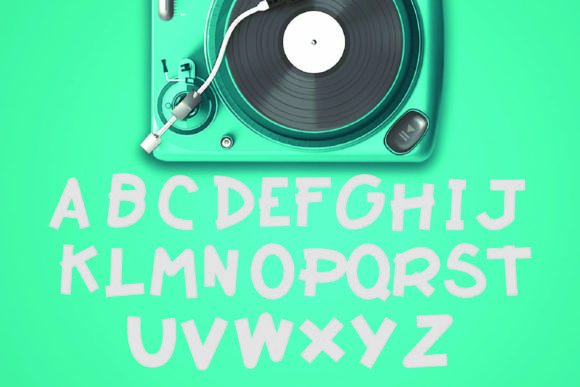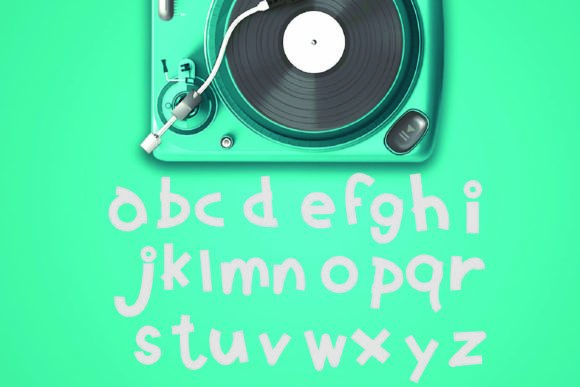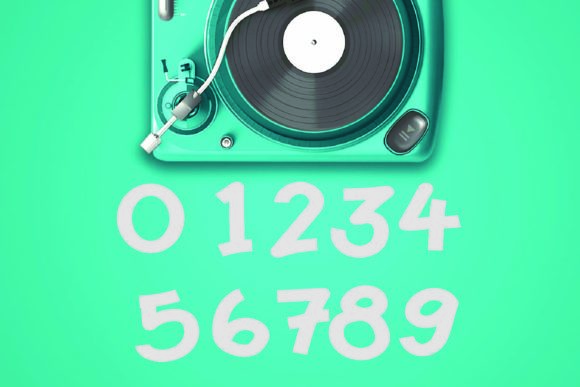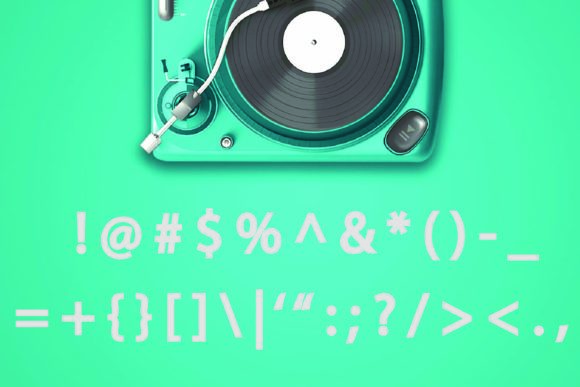
Happy KK Font – Free Download
Introduction to Happy KK Font
Happy KK is a cute and casual display font with an incredibly friendly feel.
Fall in love with its authentic feel and use it to create gorgeous wedding invitations, beautiful stationary art, eye-catching social media posts, and cute greeting cards .